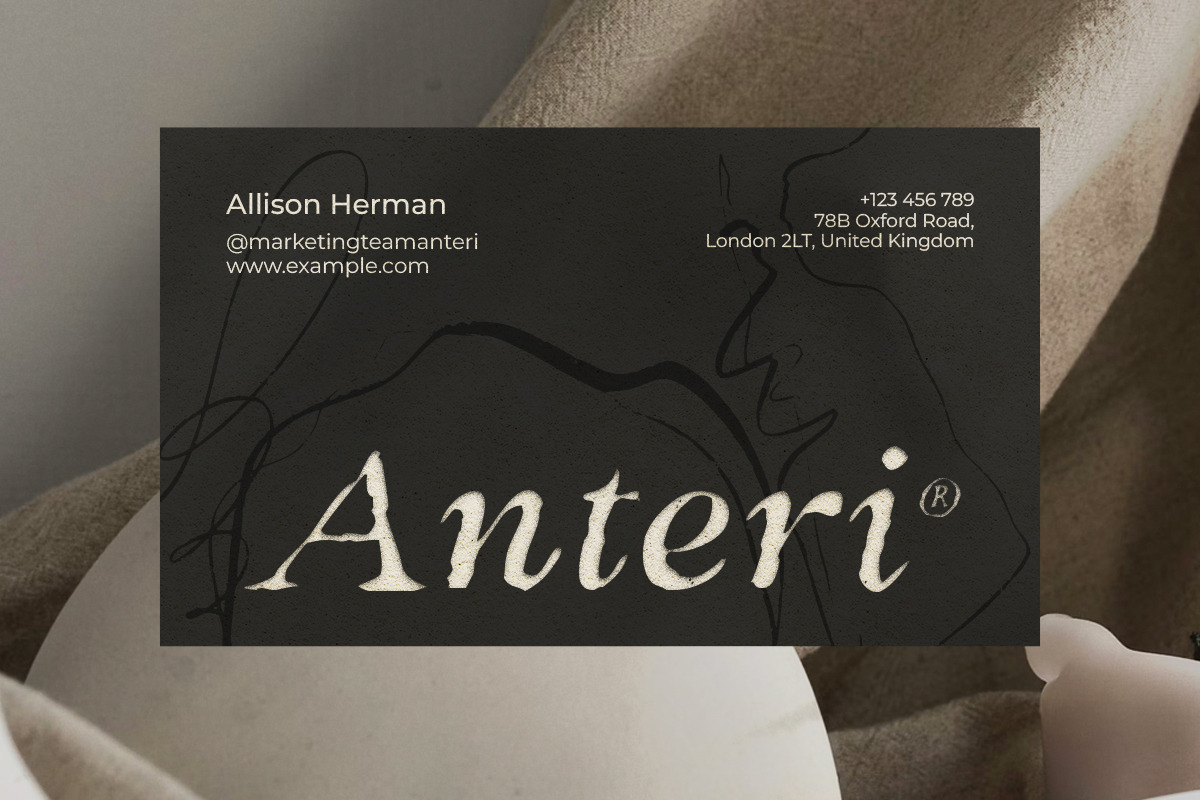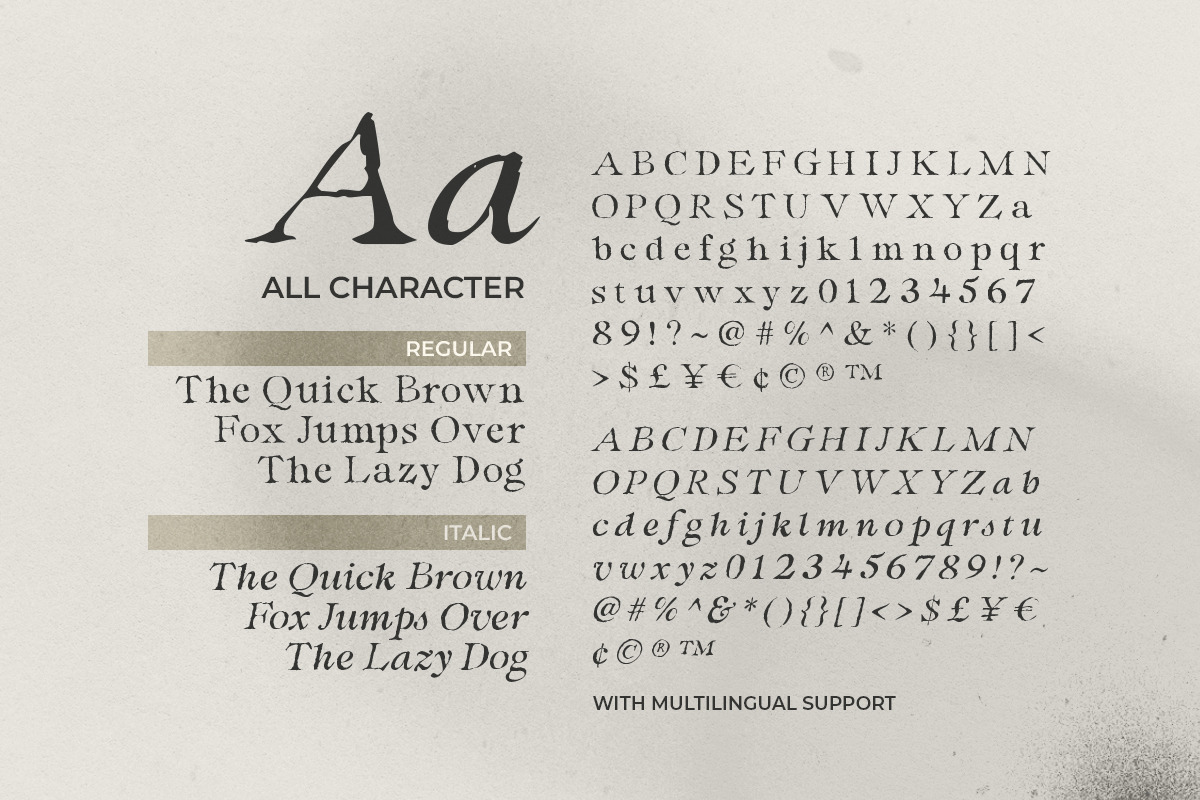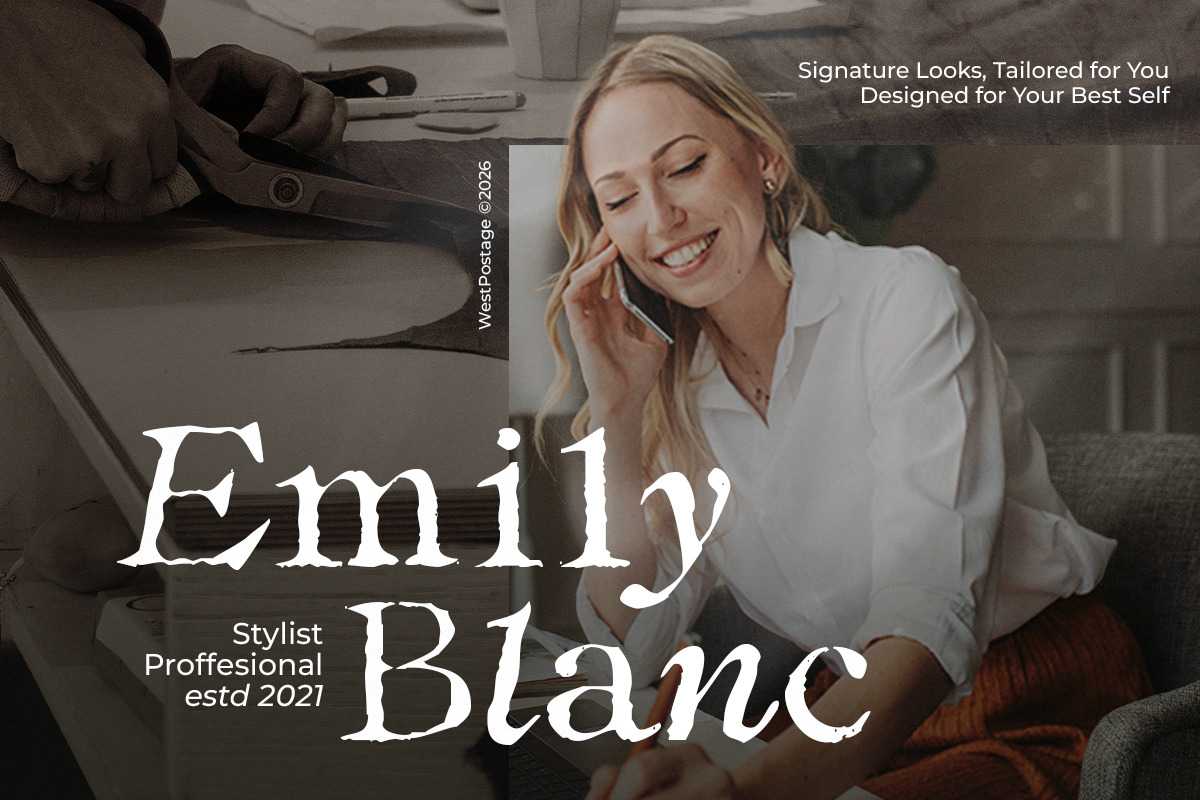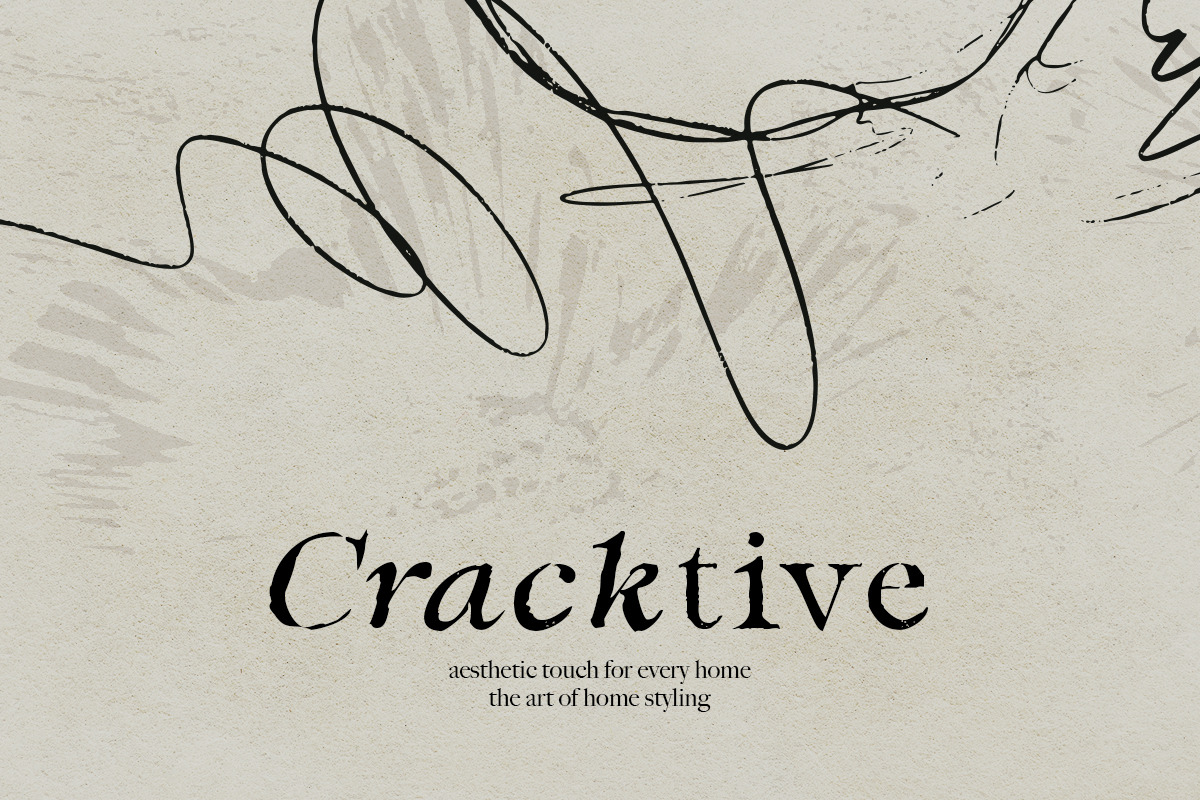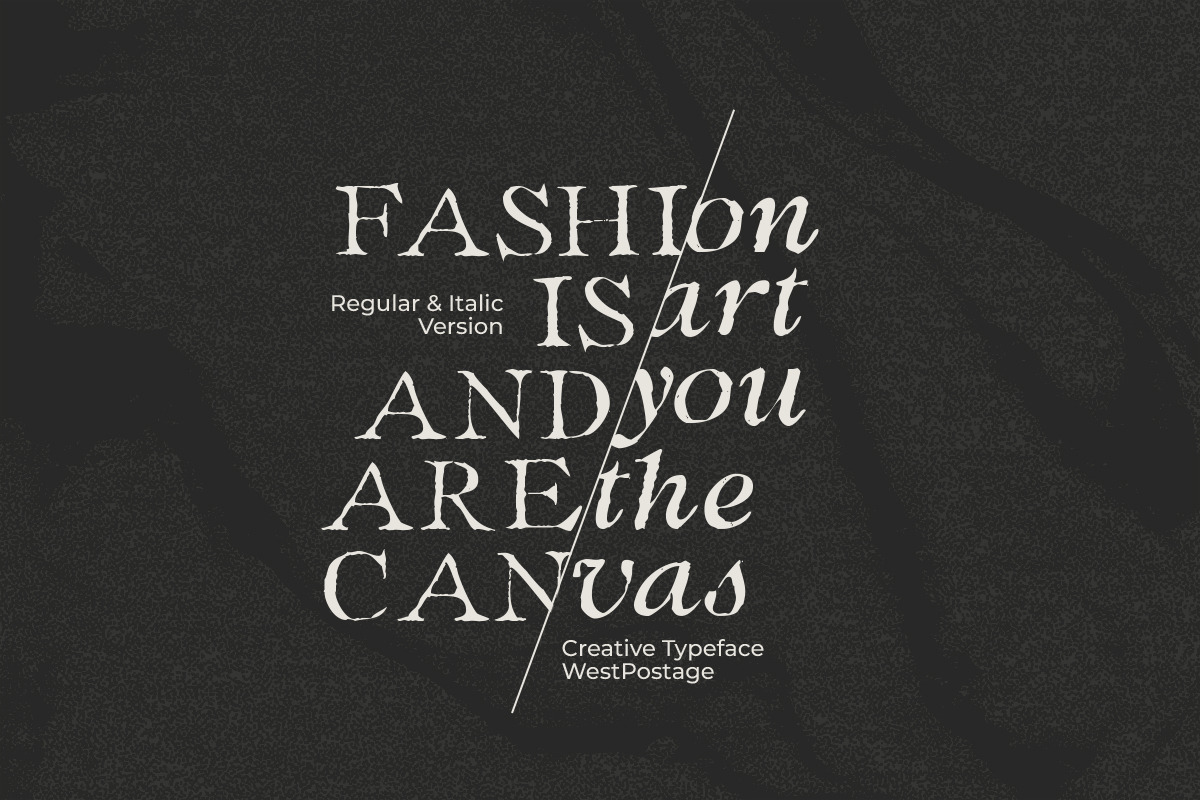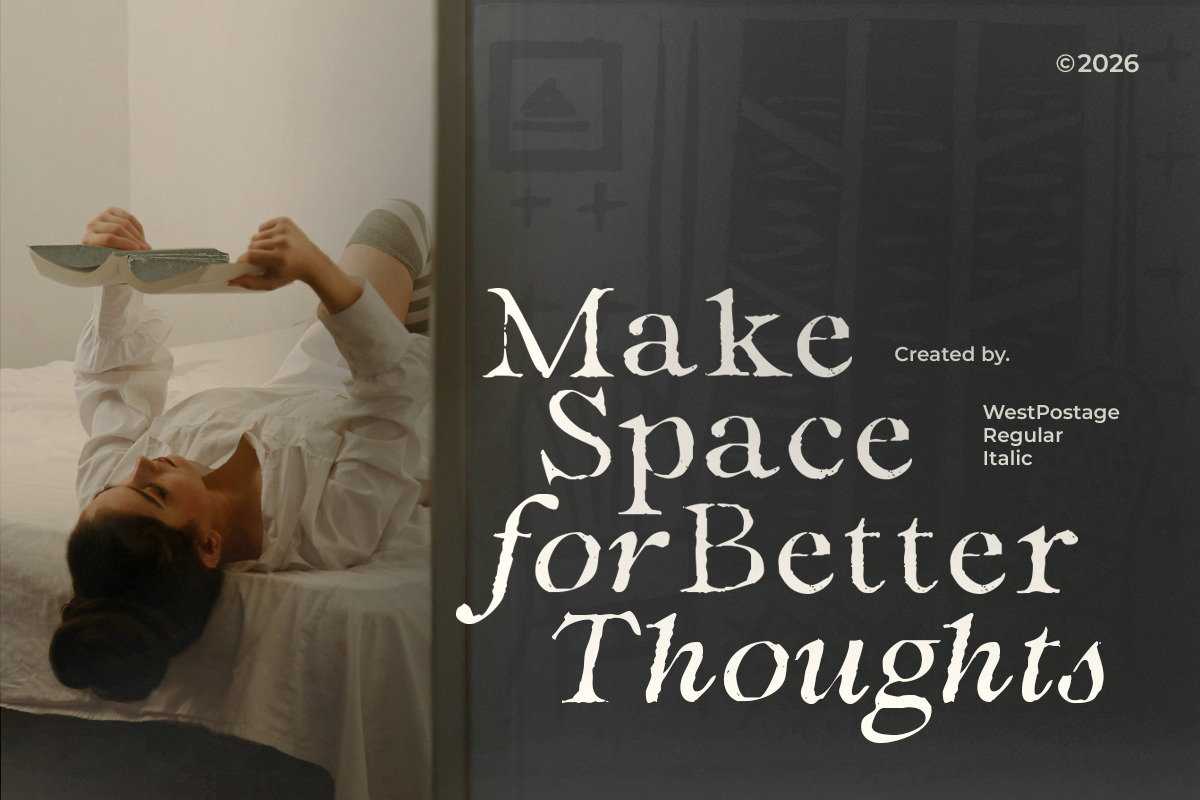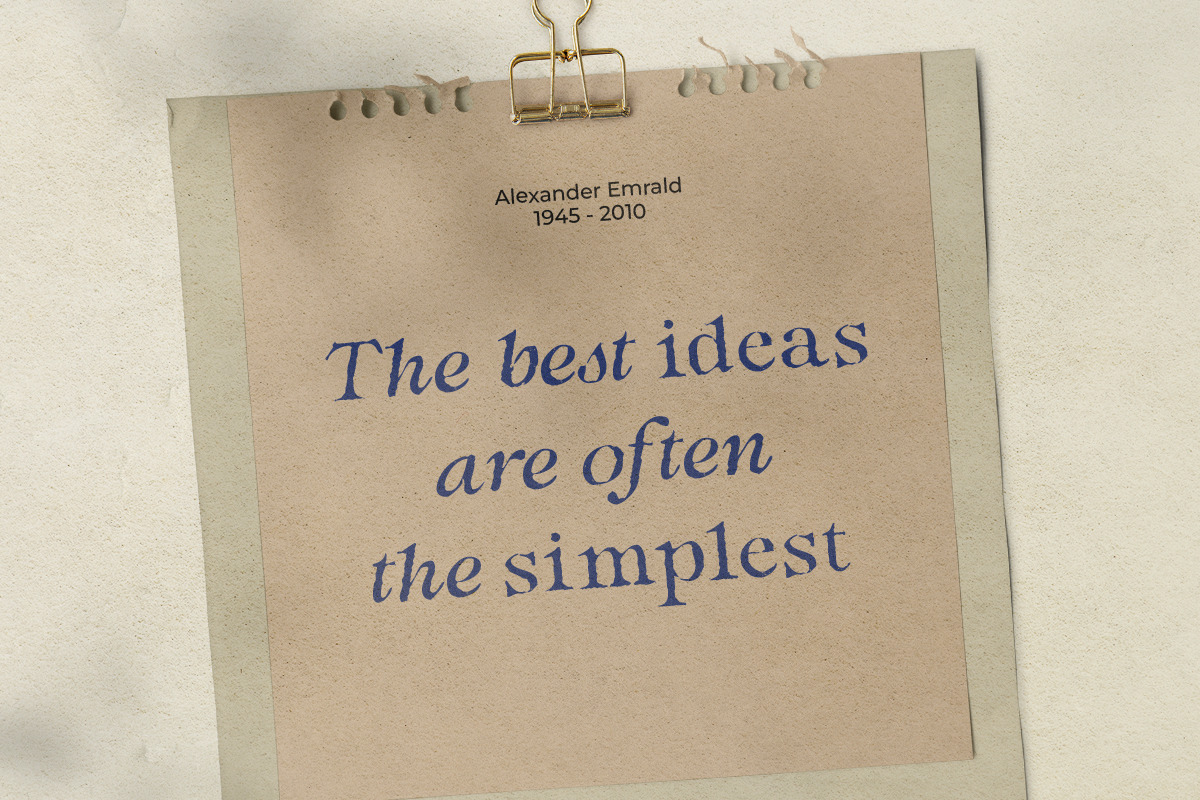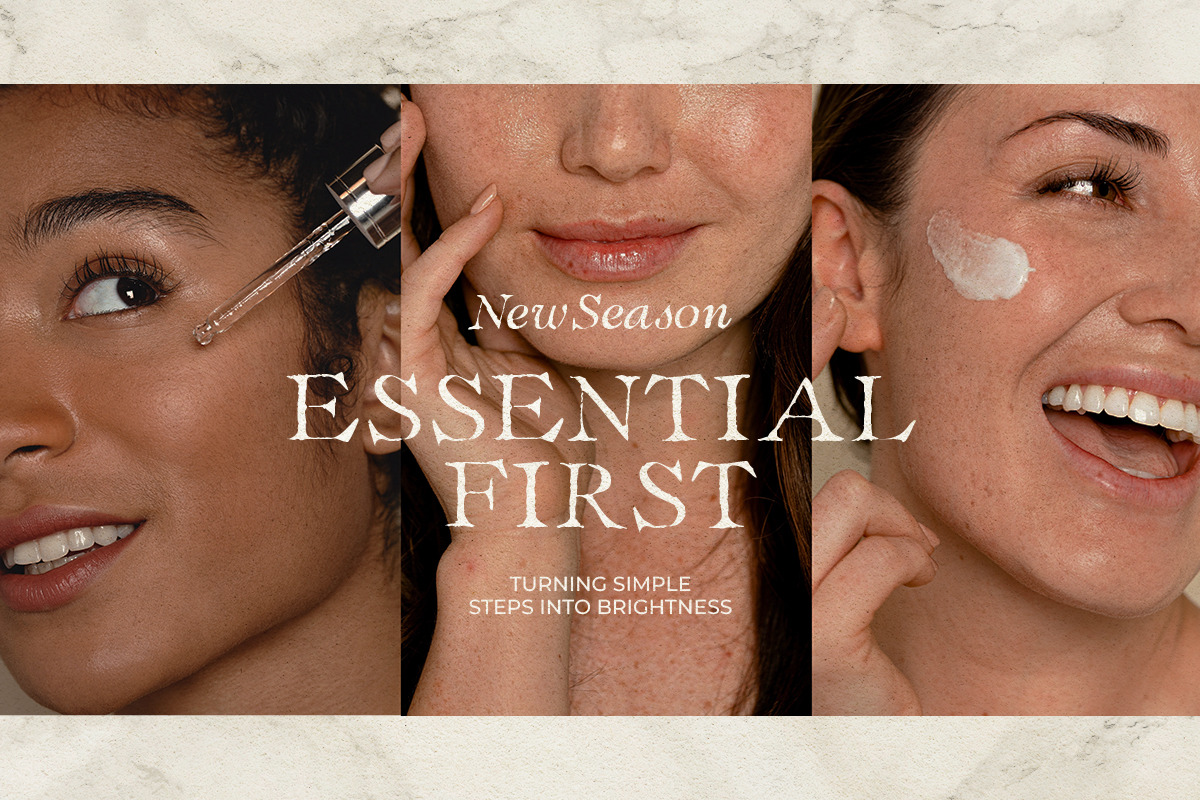
West Postage - Rough Sketch Serif
Introducing, West Postage, handcrafted rough serif font family.
West Postage is a rough sketch and organic serif with italic. You can use this font to make something naturally handwritten project such as logotype, wedding invitations, quotes, and branding. Including true italic that you can use to make your design looks beautiful and stunning. This font also support multi language.